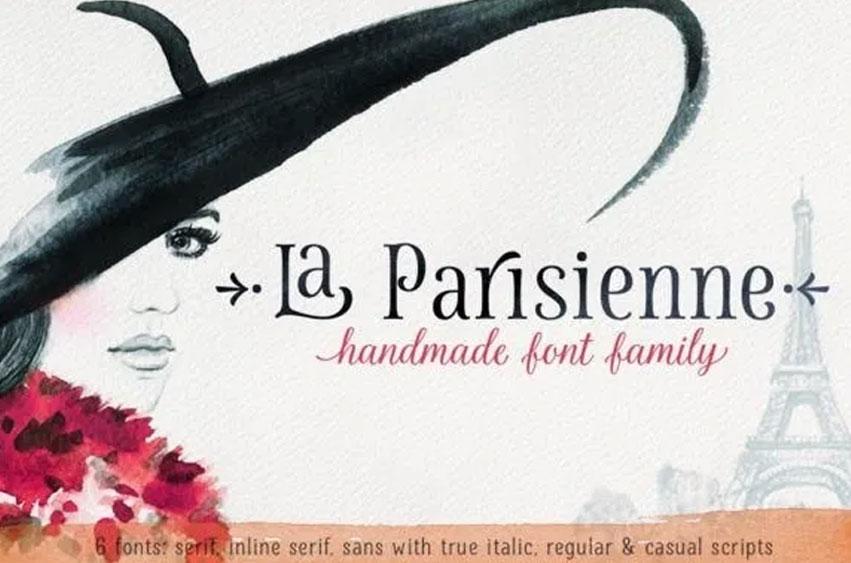
La Parisienne Font
La Parisienne Font is a collection of fonts inspired by Paris avenues and boulevards full of inimitable french charm. The family is a mix of hand-lettering and classic forms.
All fonts in the collection work together well and while they share some of the features each of the fonts has its own character.